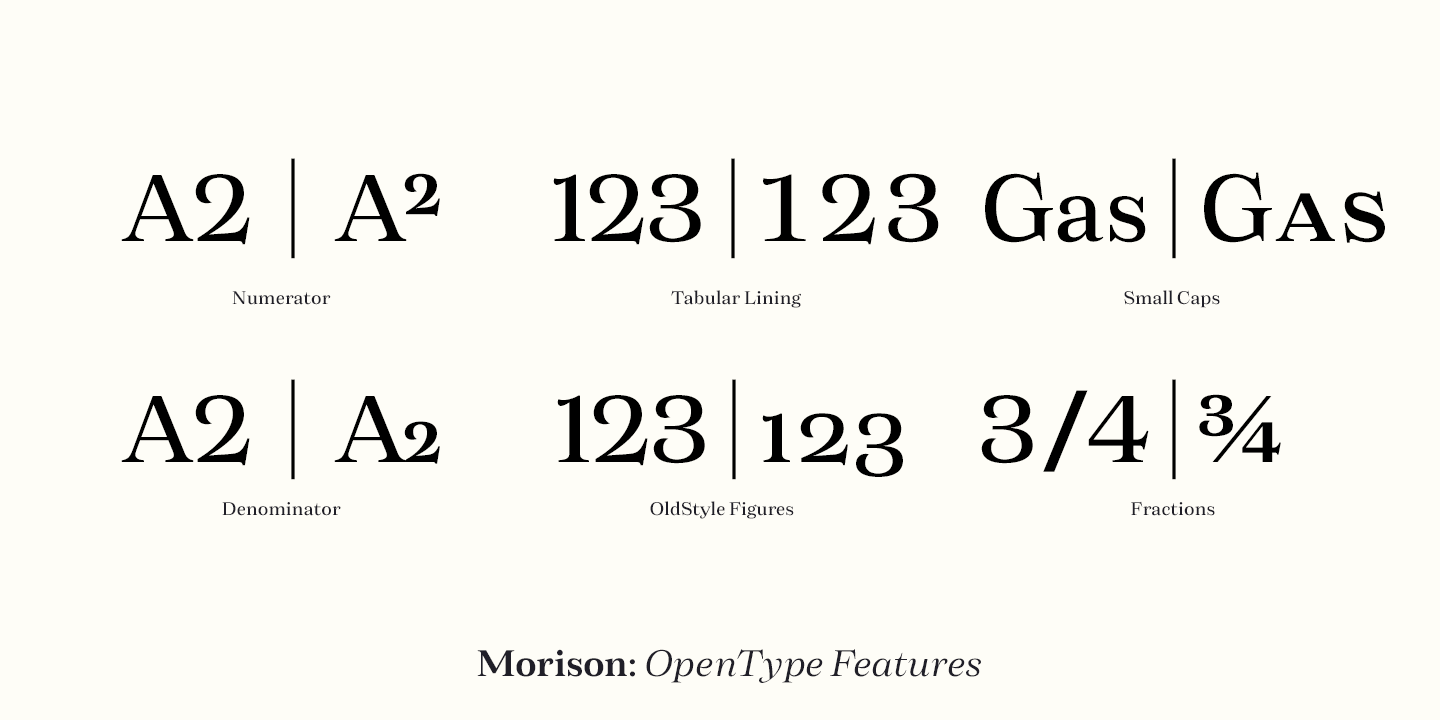
Morison Font is perfect for prestigious law firms, traditional banking institutions, established financial services, distinguished academic publications, heritage brand packaging, formal government documents, classical concert programs, and distinguished corporate communications.
This font is exciting because it embodies institutional authority and scholarly distinction with refined letterforms that convey centuries of trustworthiness, expertise, and unwavering reliability. The Morison Font captures the essence of established excellence and professional gravitas, transforming ordinary text into distinguished communications that command respect and inspire confidence in serious institutional settings.
The Morison Font family includes authoritative variations such as Regular, Bold, Light, Medium, Italic, Small Caps, Condensed, and Extended versions, providing institutional designers with comprehensive tools to create typography that reflects professional credibility and established authority across all formal business applications.